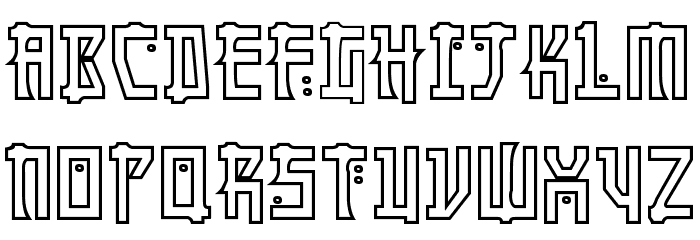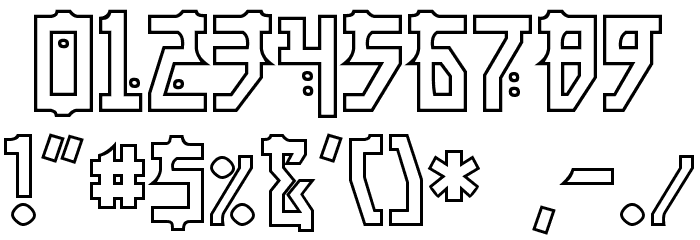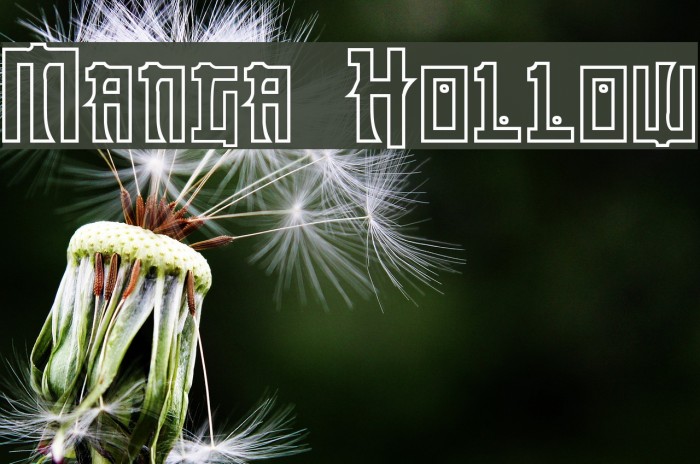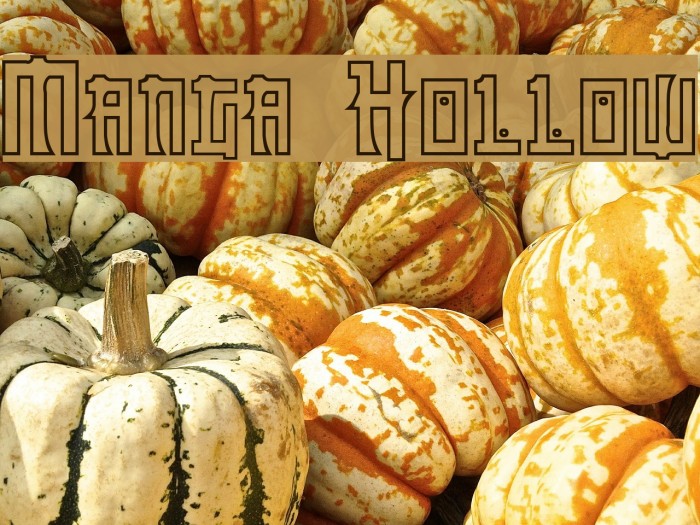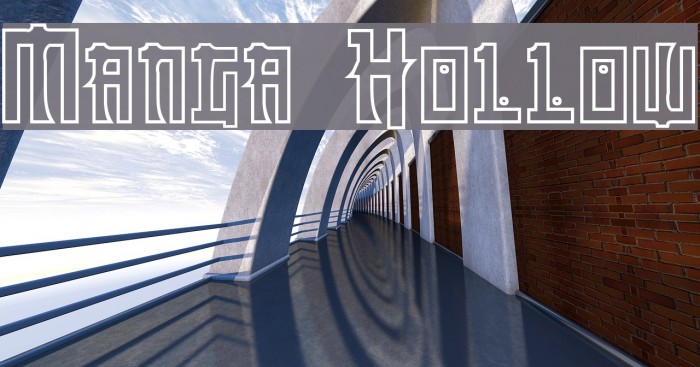
Manga Hollow Font
This font features a bold, geometric design with hollow interiors, giving it a distinctive and eye-catching appearance. The characters are constructed with angular lines and sharp edges, creating a futuristic and tech-inspired aesthetic. Each letter and number is outlined, with a consistent thickness that maintains uniformity across the set. The inclusion of small circular details within some characters adds a unique touch, enhancing the overall visual interest. This font is particularly suitable for projects that require a modern and edgy look, such as digital artwork, posters, and branding materials.
A bold, geometric font with hollow interiors and angular lines, perfect for modern designs.
- Proposed Projects: Ideal for digital artwork, posters, branding materials, and any project needing a modern, tech-inspired look.